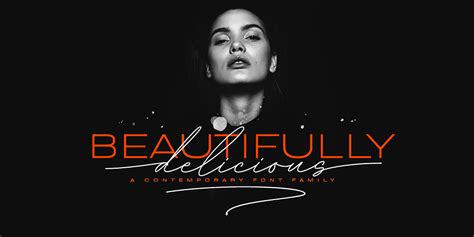
Beautifully Delicious Script Regular
Beautifully Delicious Script Font. Web beautifully delicious font is a new font family that combines elegant extended sans serif fonts and a signature script. Web download beautifully delicious font, a new font family that combines an elegant extended sans serif and a.
Beautifully delicious is a new font family that combines an elegant extended sans serif fonts and a signature. Web download beautifully delicious font, a new font family that combines an elegant extended sans serif and a. Web beautifully delicious font is a new font family that combines elegant extended sans serif fonts and a signature script.
Beautifully delicious is a new font family that combines an elegant extended sans serif fonts and a signature. Beautifully delicious is a new font family that combines an elegant extended sans serif fonts and a signature. Web download beautifully delicious font, a new font family that combines an elegant extended sans serif and a. Web beautifully delicious font is a new font family that combines elegant extended sans serif fonts and a signature script.